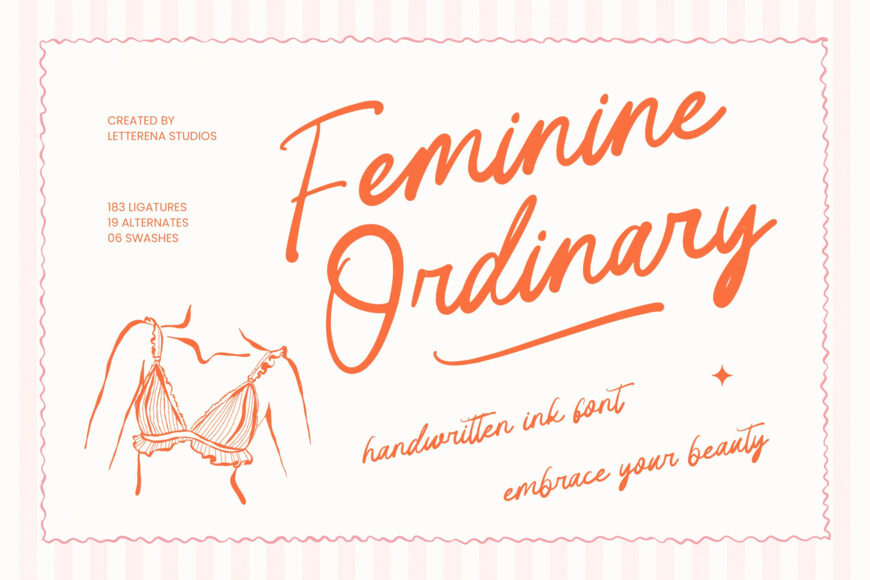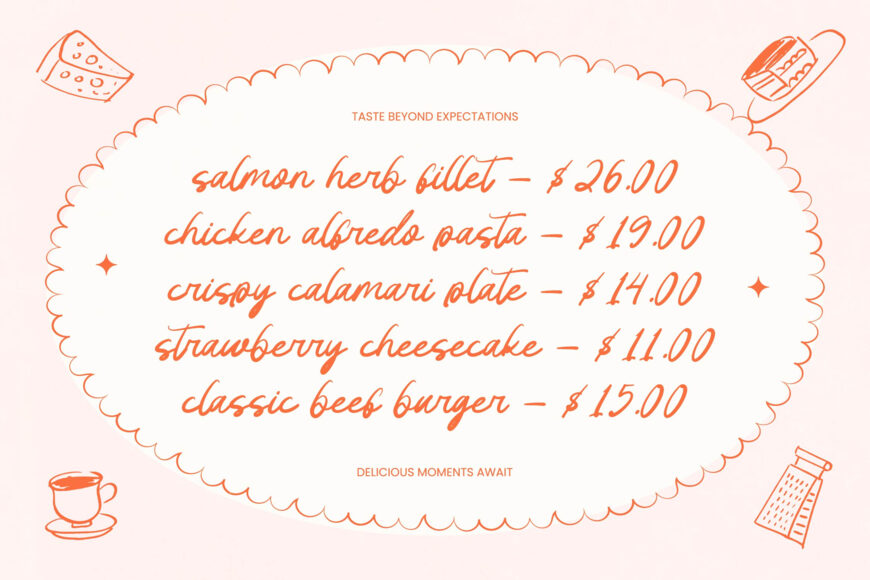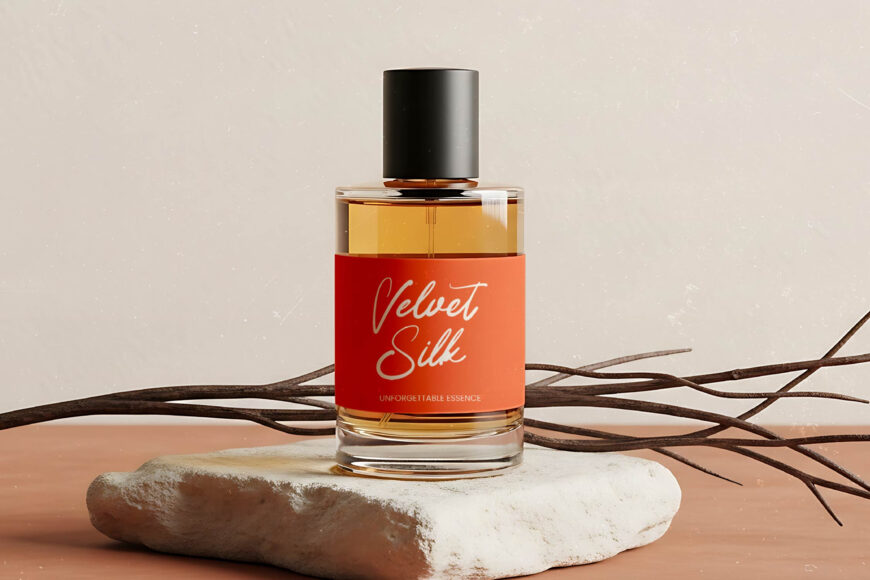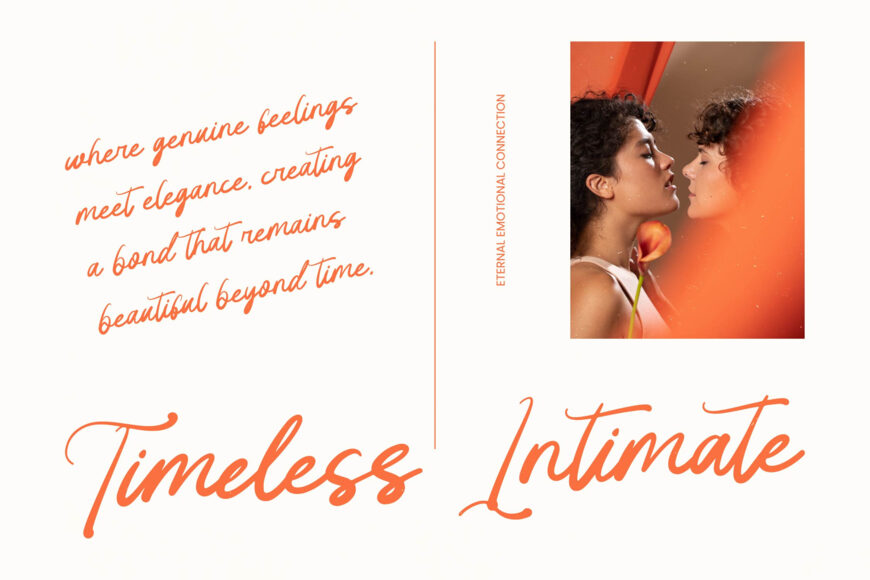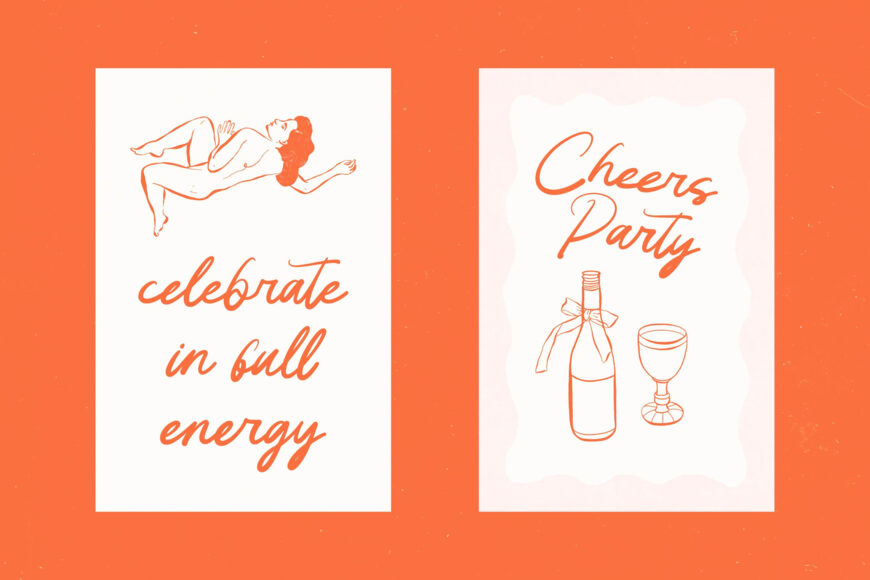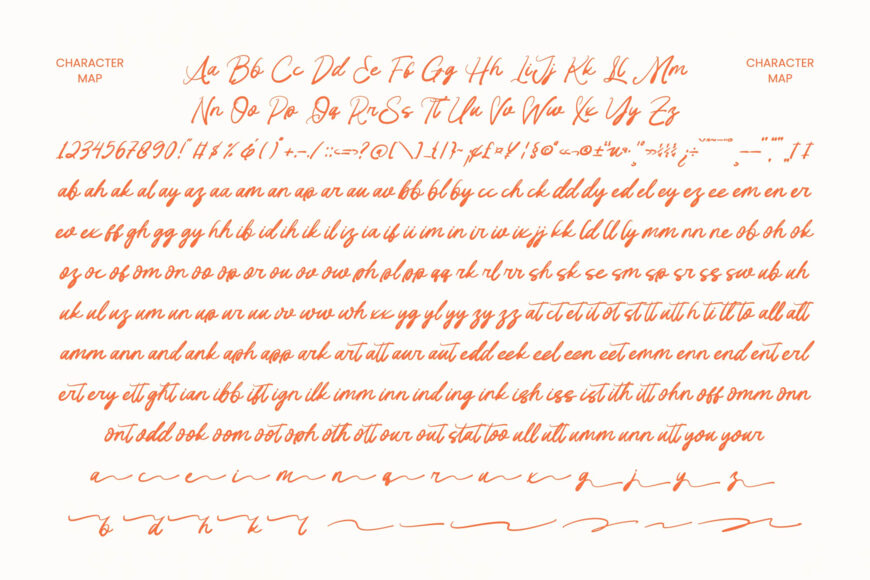
Elevate your designs with a handwritten font that combines elegance and intimacy. Its organic, ink-like strokes bring a unique touch to your typography.
With extensive features, including ligatures and swashes, you’ll have the creative freedom to craft custom typography that resonates with modern audiences. Perfect for luxury branding and high-impact design, this font delivers a sophisticated, memorable aesthetic that works beautifully across languages and cultures.